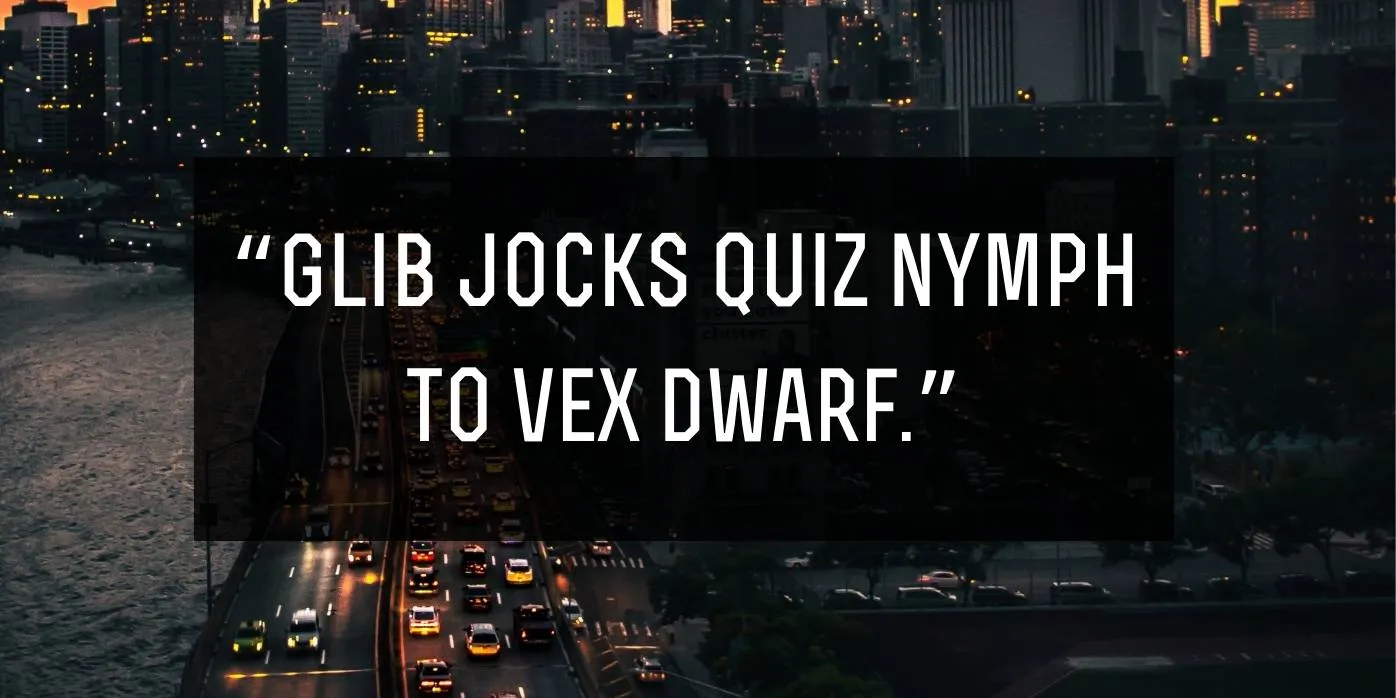
Rex Font
Here, we are going to present a well-known and popular font named Rex Font. This cute typeface was designed by Fontfabric. It belongs to the display font family. This tremendous typeface is available in three special weights Inline, bold, and light.
This stunning typeface consists of different classic styles. For classic and modern shape designs this typeface has unique Glyphs. This marvelous font family is also best for Adobe Photoshop, Adobe Illustrator, and others. It becoming popular day after day.